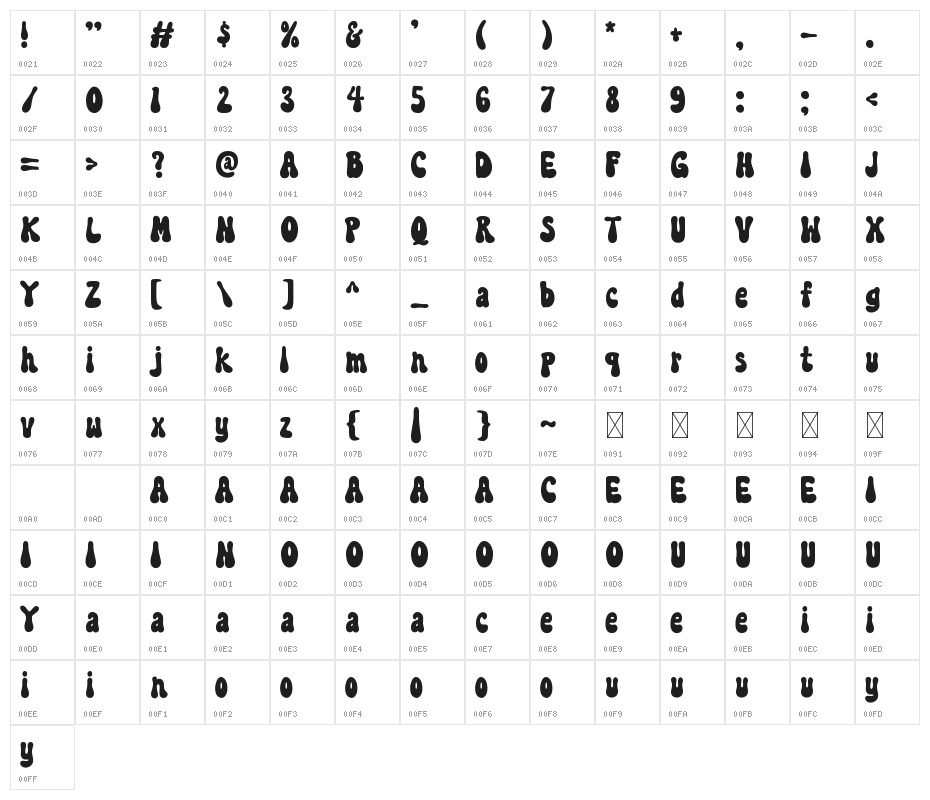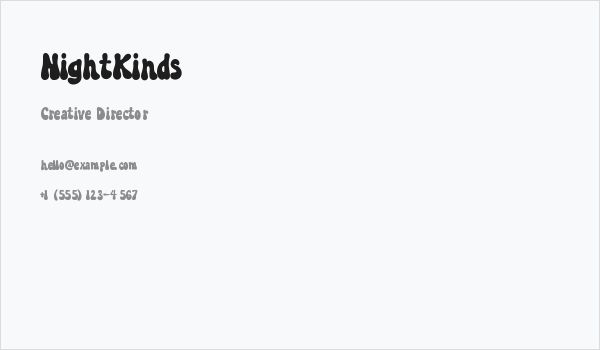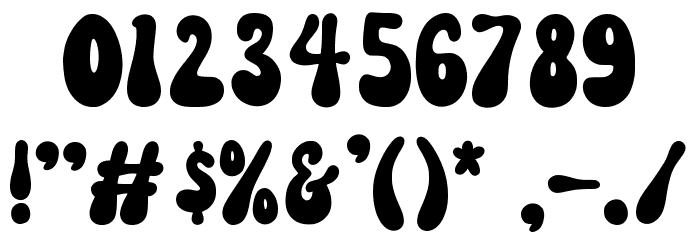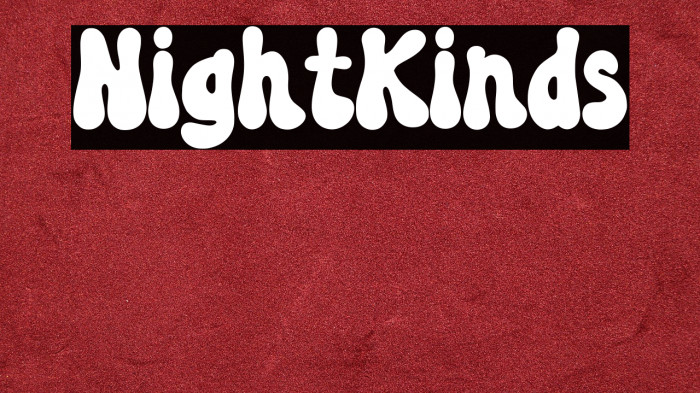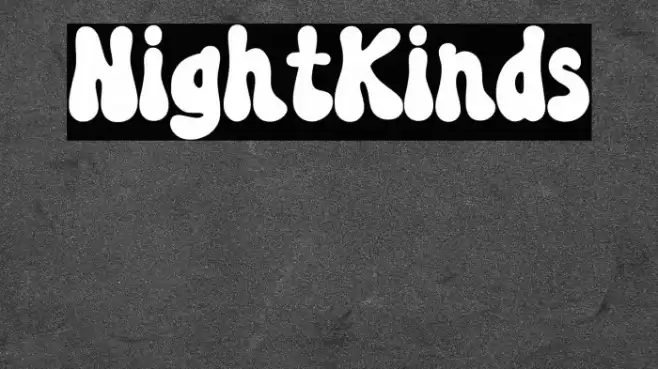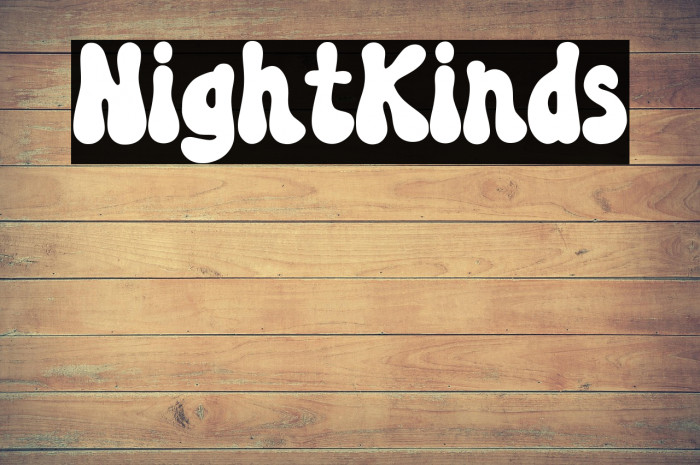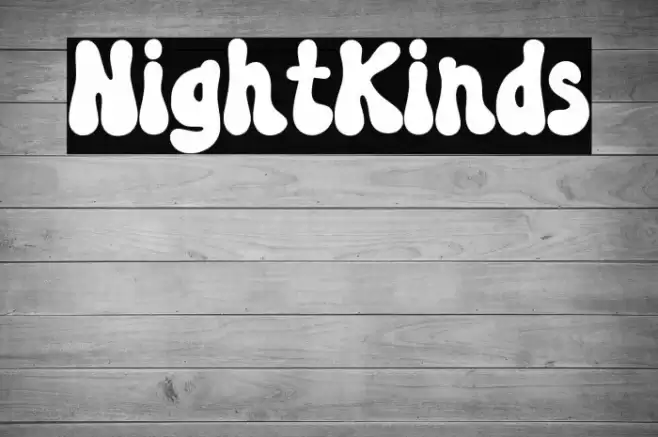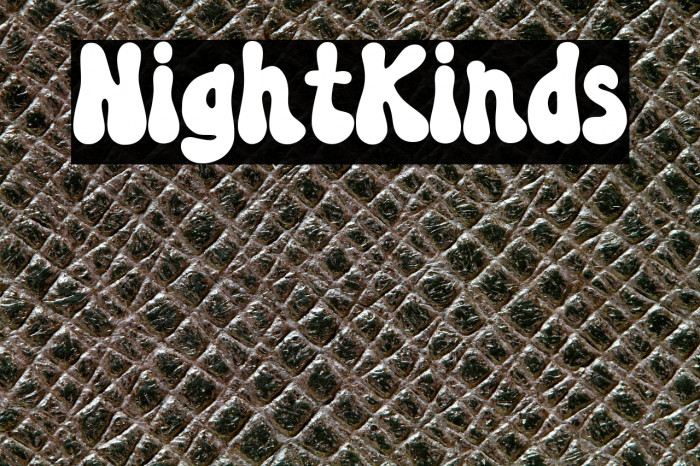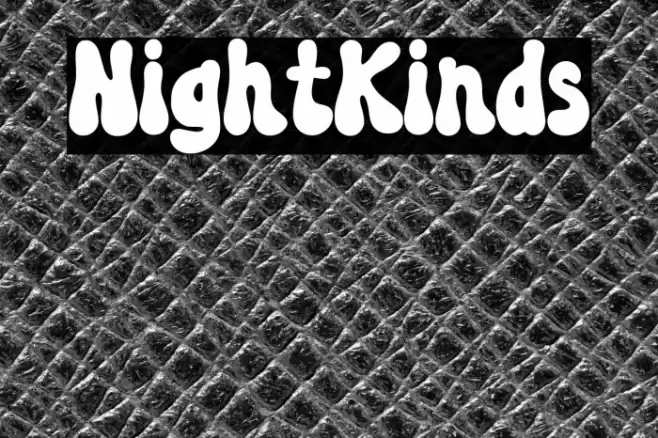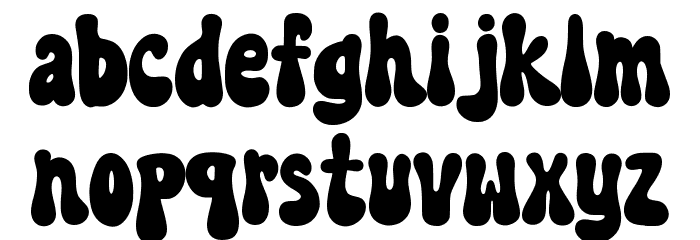
NightKinds Font
NightKinds Description
This font features a bold and playful design with thick, rounded strokes that give it a bubbly and whimsical appearance. The characters are heavily weighted, creating a strong visual impact. The uppercase and lowercase letters maintain a consistent style, with exaggerated curves and a slightly uneven baseline that adds to its quirky charm. The numbers and special characters follow the same playful aesthetic, making the font suitable for creative and informal projects. Its unique style is eye-catching and can be used to convey a sense of fun and energy.
| Overall Style | Playful, Whimsical |
| Use Case | Logos, Headlines, Posters |
| Proposed Projects | Ideal for children's books, playful branding, party invitations, and creative posters. |